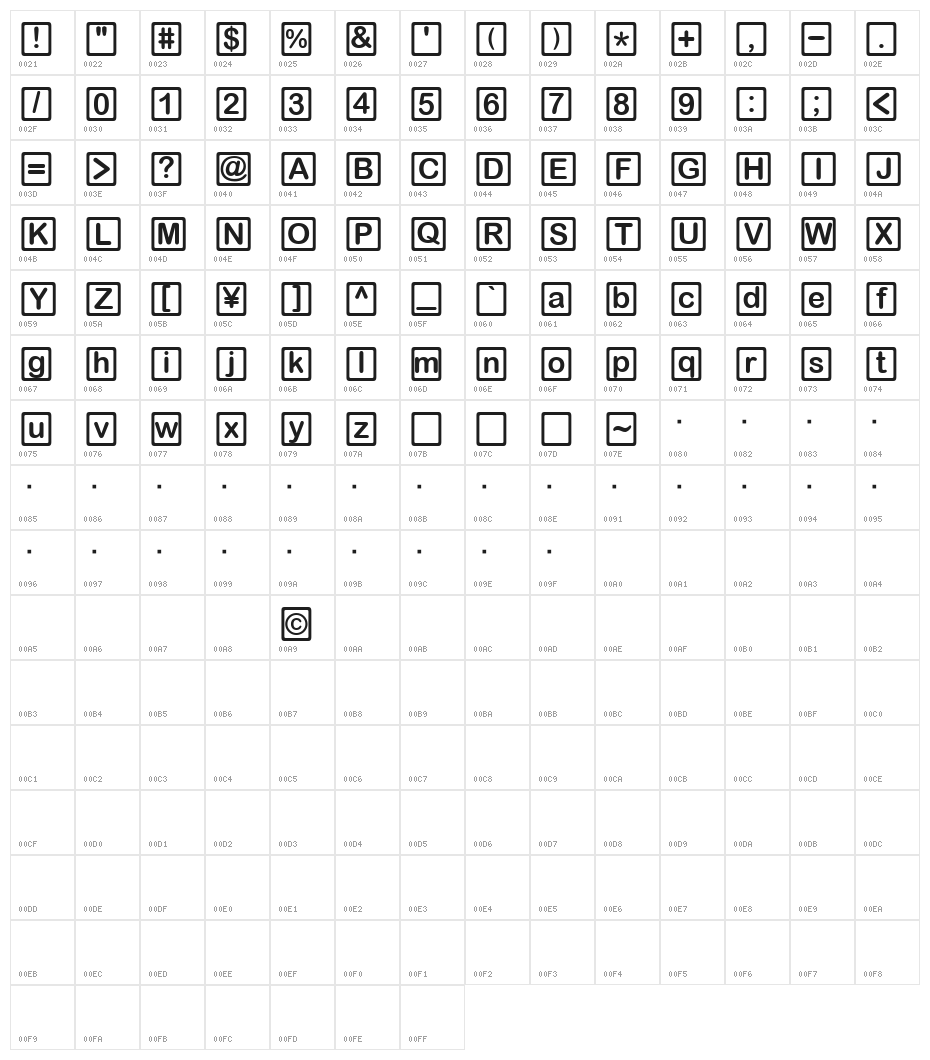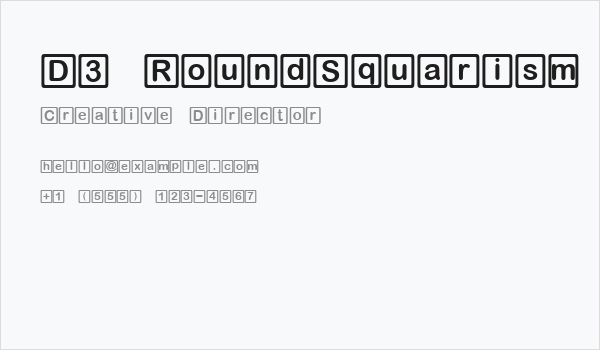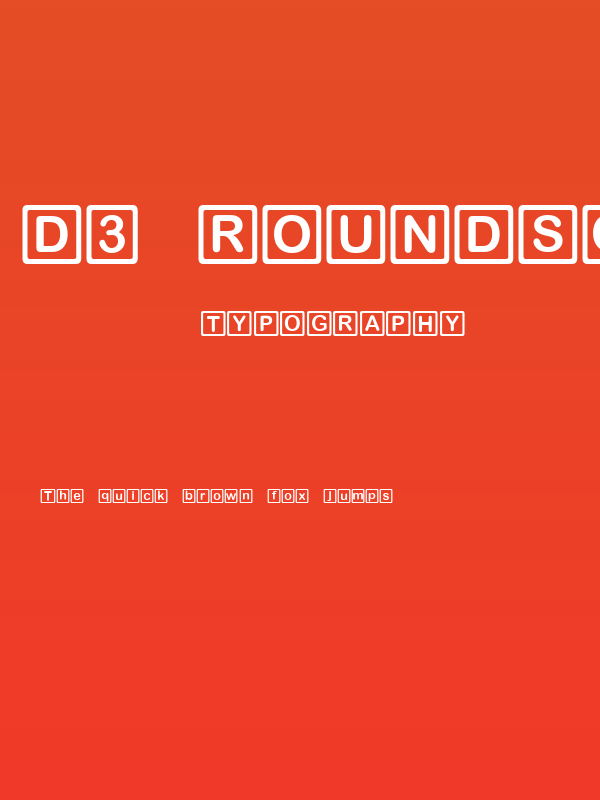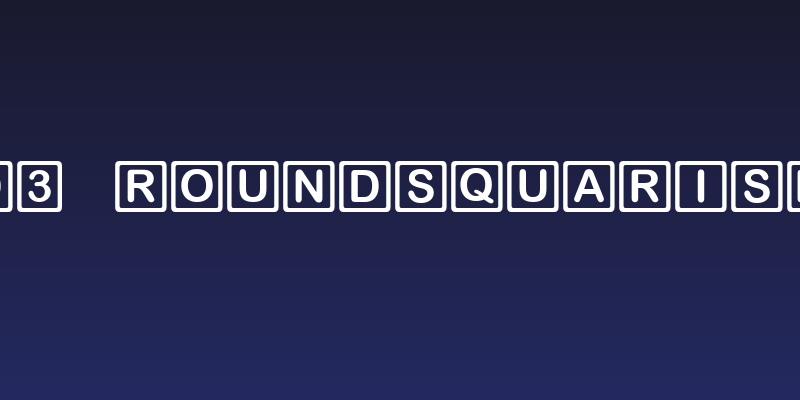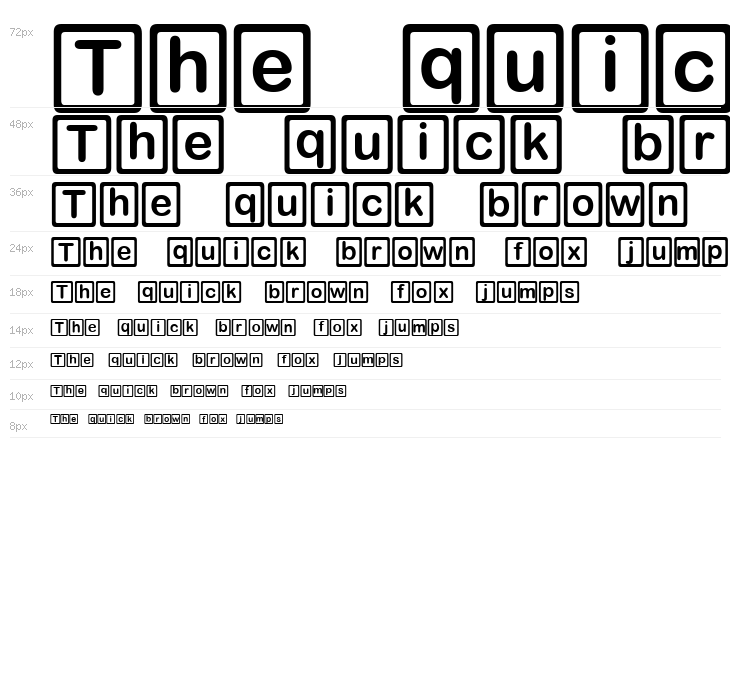
D3 RoundSquarism Font
D3 RoundSquarism Description
This font features a unique blend of geometric and rounded elements, creating a modern and playful aesthetic. Each character is enclosed within a square outline, giving it a distinctive boxed appearance. The letters are bold and uniform, with consistent stroke thickness that adds to the font's cohesive look. The rounded corners of the squares soften the overall design, making it approachable and friendly. This style is particularly eye-catching and can be used to draw attention in various design contexts. The font includes a full set of uppercase and lowercase letters, numbers, and a variety of special characters, ensuring versatility in its application.
Proposed ProjectsIdeal for branding, packaging, posters, and digital media where a modern and playful look is desired.